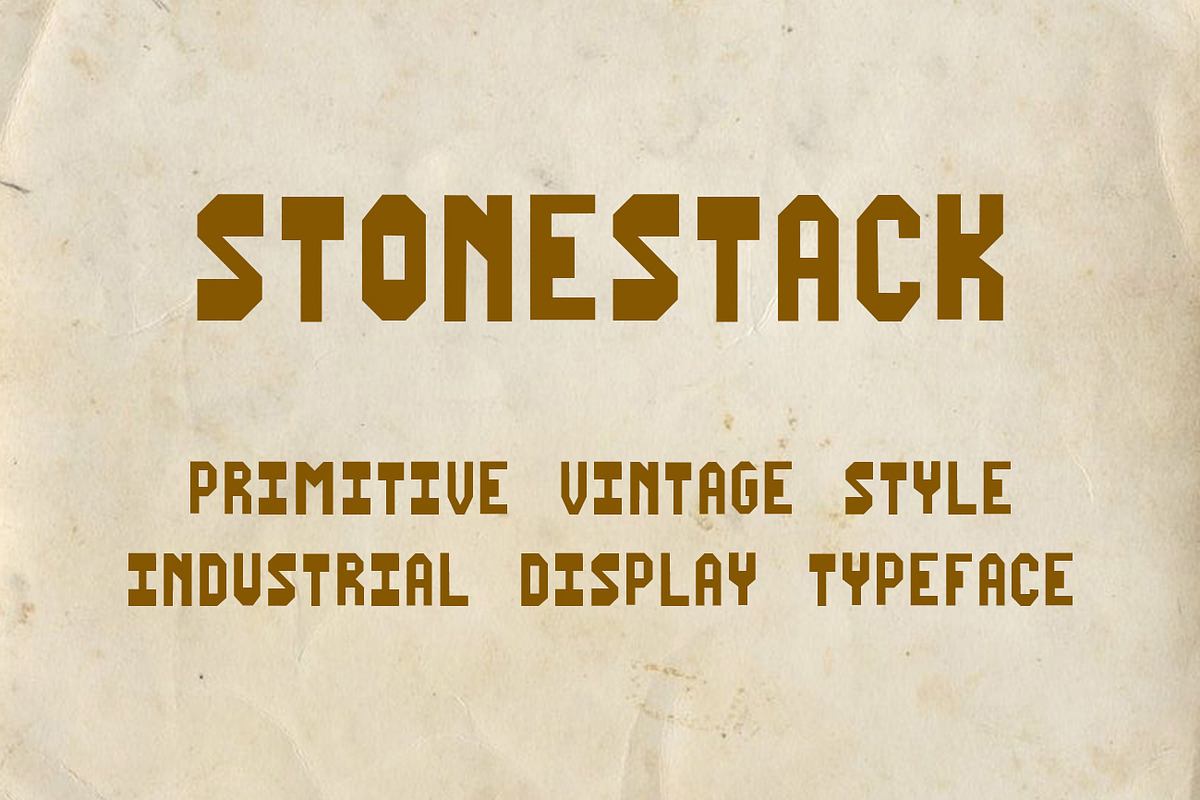
Stonestack Vintage Industrial Font Free Download
Please note, to use this font for commercial purposes, you must purchase the full version. Stonestack Vintage Industrial Font is a bold and gritty typeface that combines vintage charm with industrial strength. Its rough, weathered letterforms make it ideal for creating powerful designs for logos, posters, product packaging, and more. Whether you're working on a retro-inspired project or need a font with a strong, urban feel, Stonestack adds a distinctive, rugged touch to your designs. Test it out and enjoy free download access for personal use. Unleash the bold energy of Stonestack Vintage Industrial Font Free Download before purchasing the commercial license. Bring a tough, industrial edge to your designs with this unique font.